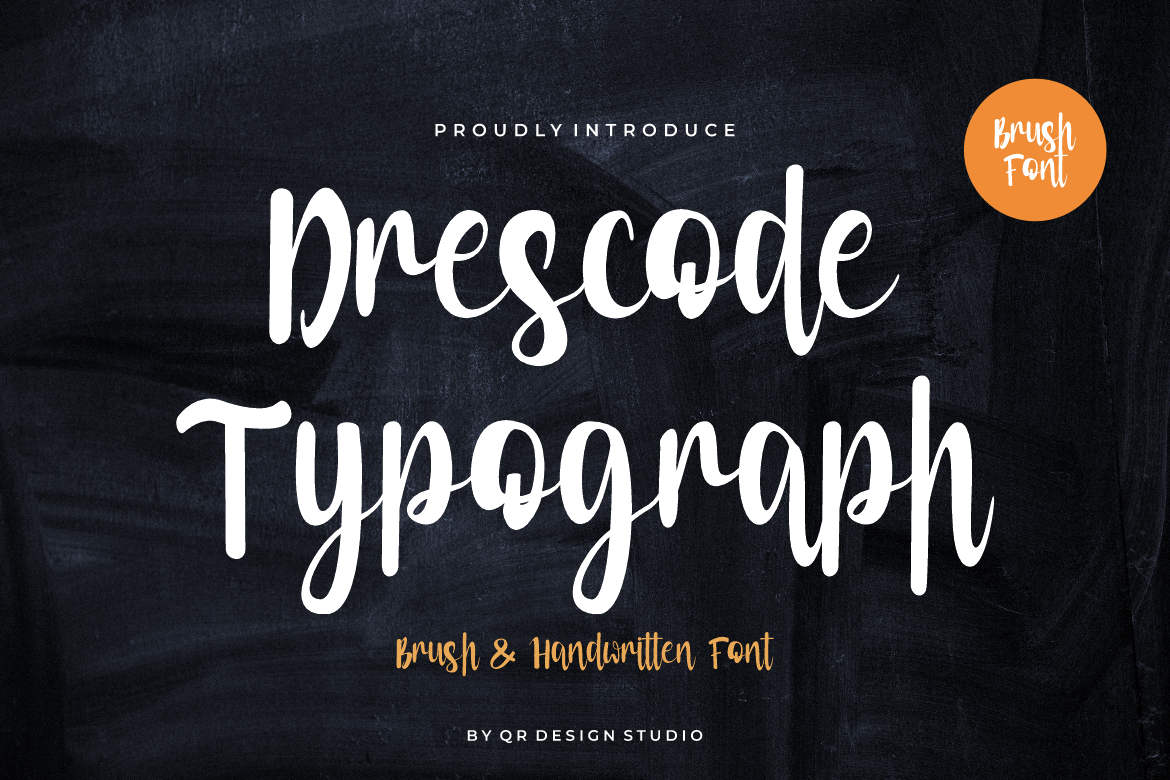
Drescode Typograph Font
Drescode Typograph Font is a bold and authentic display font. The font is suitable for any branding project like poster, wedding, card, logo, sport, and many more. Outstanding in a wide range of contexts.